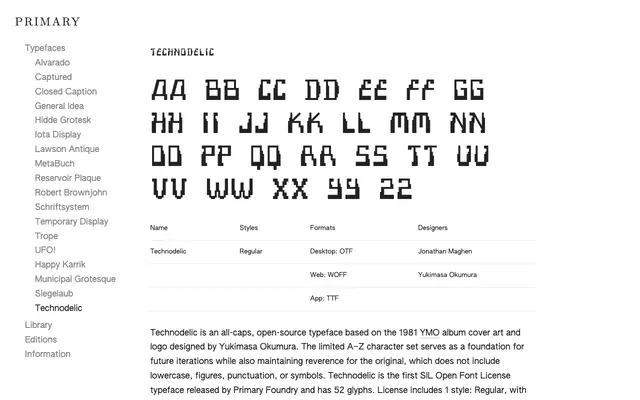
Technodelic
Primary Foundry · Jonathan Maghen, Yukimasa Okumura
An all-caps, open-source display typeface drawn from Yukimasa Okumura's 1981 logo design for Yellow Magic Orchestra's Technodelic album.
Based directly on the lettering Yukimasa Okumura designed for YMO's 1981 album cover, this typeface reconstructs that geometric, all-caps aesthetic into a usable Latin character set. The single Regular weight covers A to Z only, with 52 glyphs and no lowercase, figures, punctuation or symbols, deliberately preserving the constraints of the original artwork. Released under the SIL Open Font Licence, it is Primary Foundry's first free offering and is distributed via e-mail on request.
An all-caps geometric display typeface derived from a specific 1981 album logo, placing it firmly in the display category with no text-setting utility.